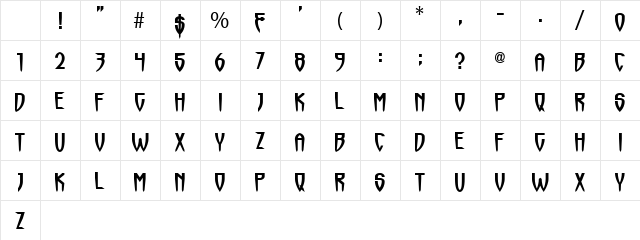
Complete Horrormaster Semi-condensed Regular glyph index. Displaying only characters natively supported by Horrormaster Semi-condensed Regular font.
Horrormaster carries an unsettling edge - its distorted letterforms are built to unsettle, perfectly suited to horror, Halloween, and dark creative work.
Font Pairing: Pair with a clean neutral sans-serif for body copy to let Horrormaster's character lead without overwhelming the composition.
Pro Tip: Use Horrormaster at larger display sizes for maximum impact. Consider generous tracking to let the disturbing character of each letterform breathe.